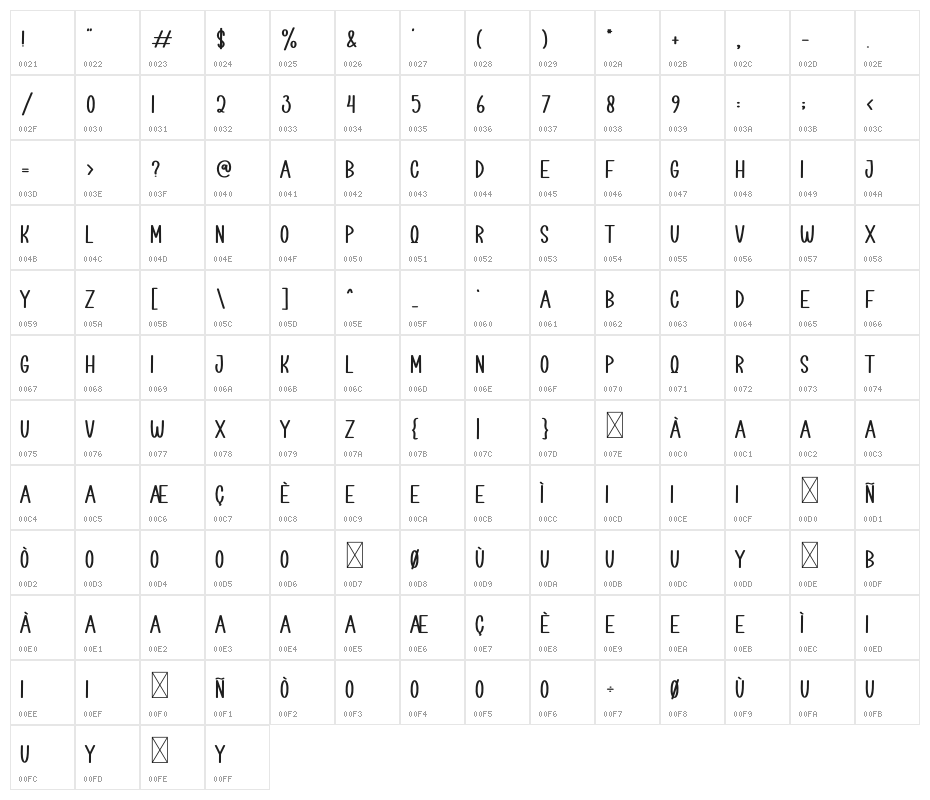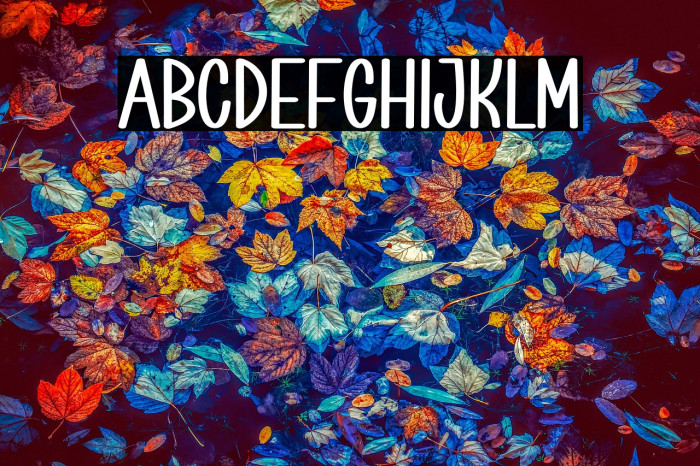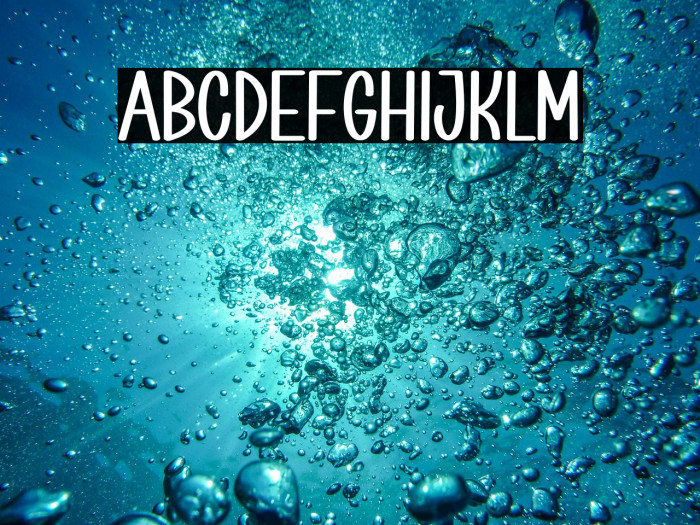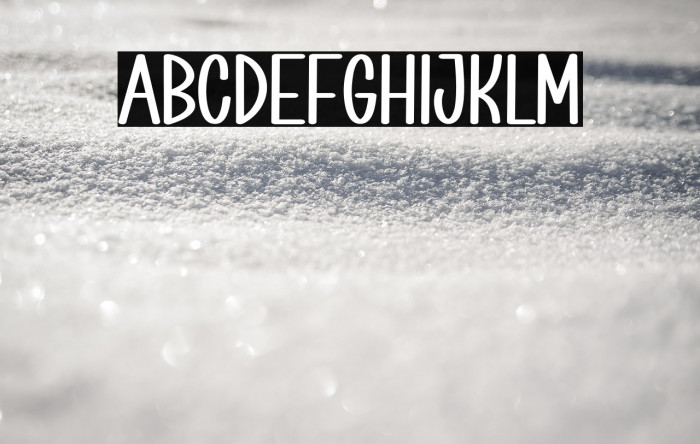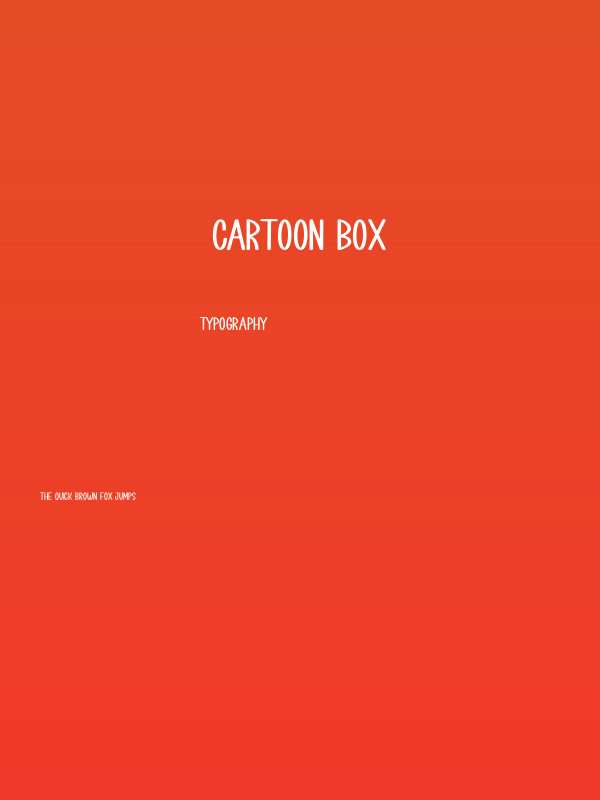
Cartoon Box Font
Cartoon Box Description
A playful, handwritten font with rounded edges and a casual style, suitable for informal and fun designs.
| Overall Style | Casual, Fun |
| Use Case | Headlines, Logos, Informal text |
| Proposed Projects | Children's books, comic strips, playful branding. |